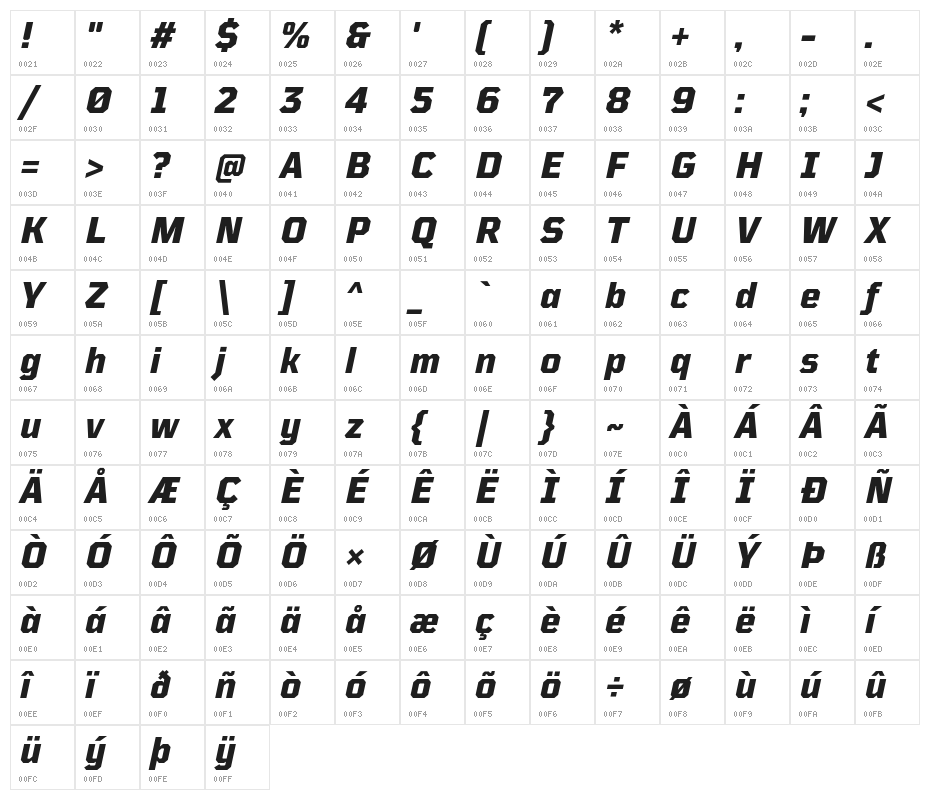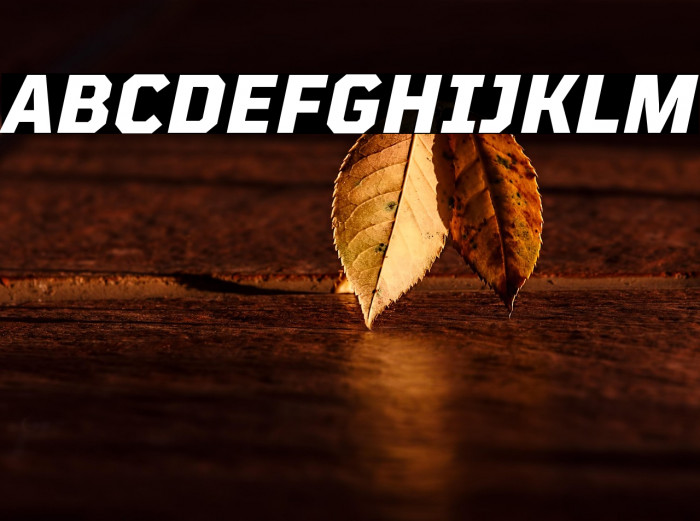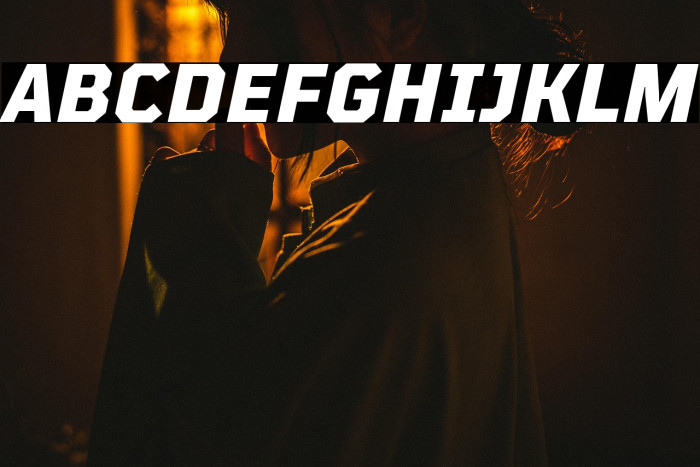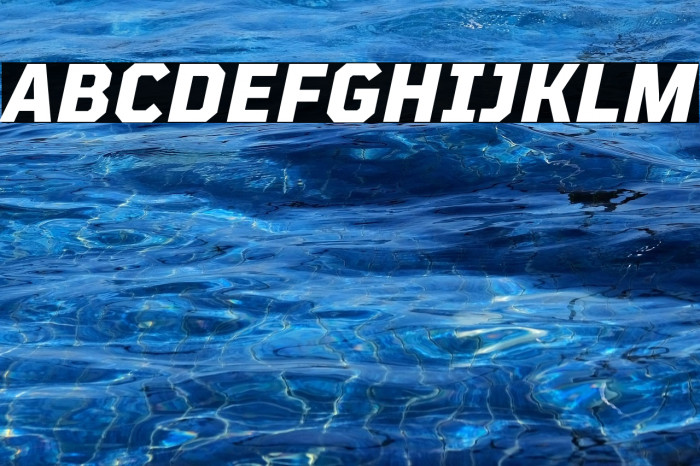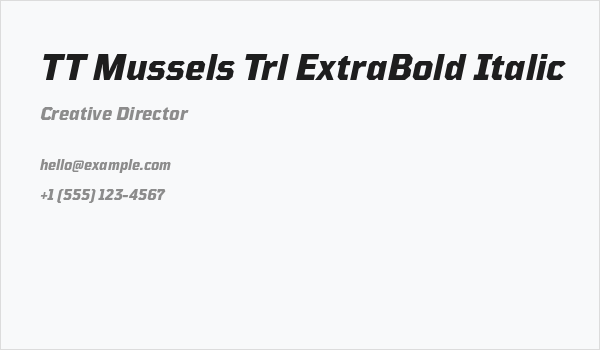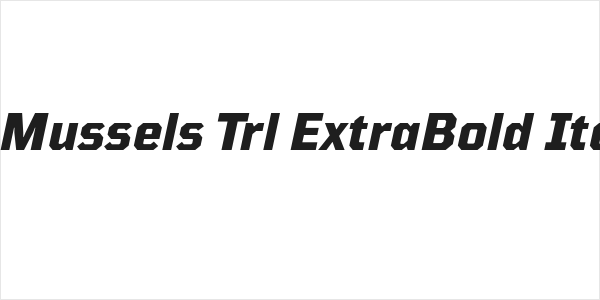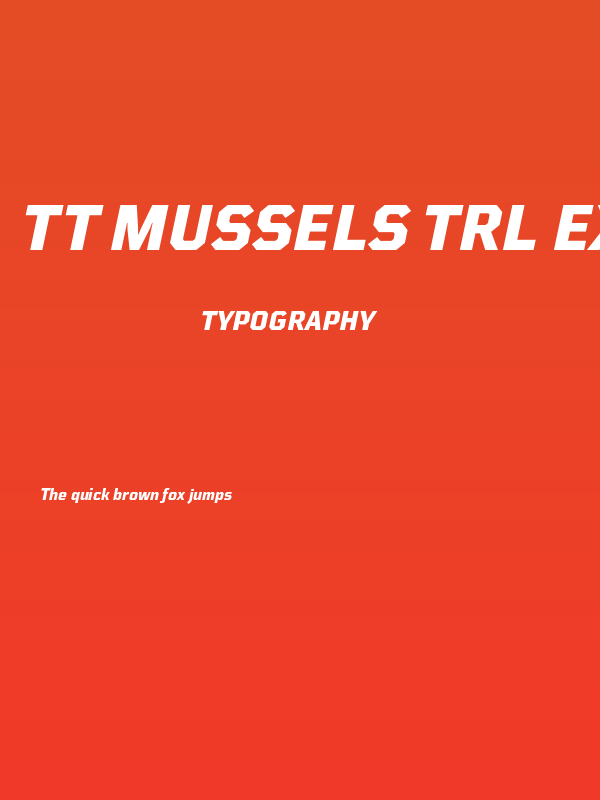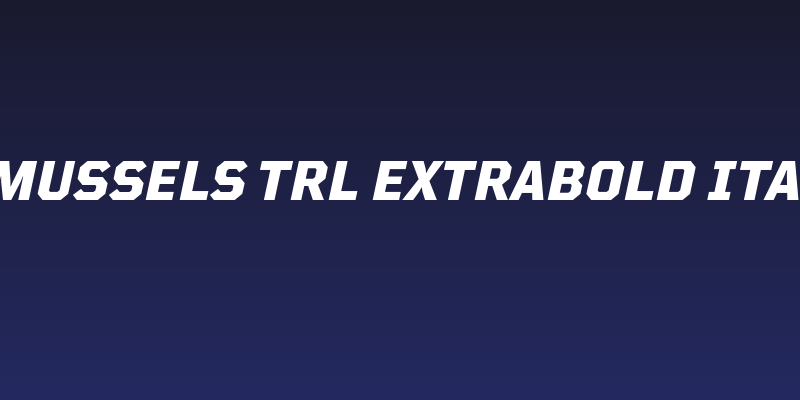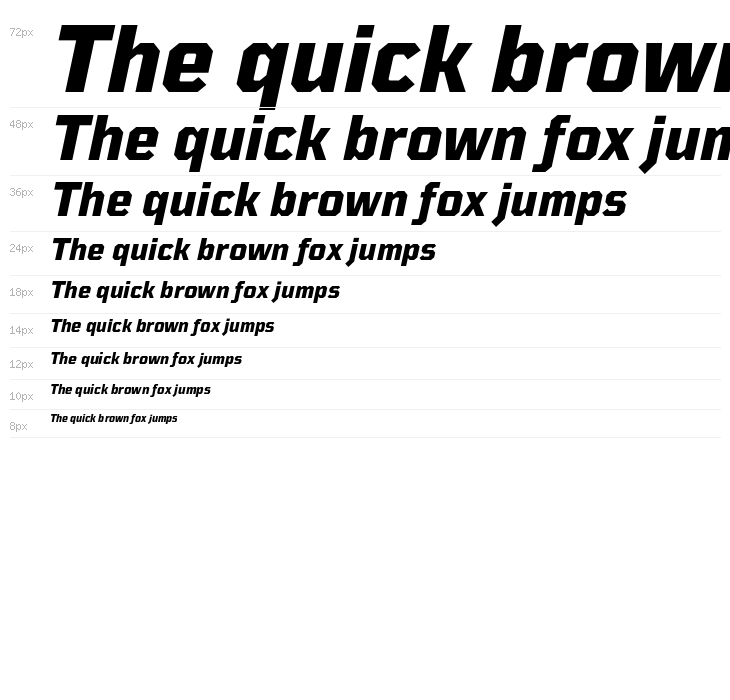
TT Mussels Trl ExtraBold Italic Font
TT Mussels Trl ExtraBold Italic Description
This font exhibits a bold and dynamic style with a strong italic slant, giving it a sense of motion and energy. The characters are robust and angular, with a geometric influence that adds a modern touch. The uppercase and lowercase letters maintain a consistent weight, ensuring readability while emphasizing its boldness. The numerals and special characters follow the same design principles, making them cohesive with the alphabet. This font is ideal for making a statement and capturing attention with its striking appearance.
| Proposed Projects | Ideal for sports branding, dynamic posters, modern advertising, and impactful headlines. |